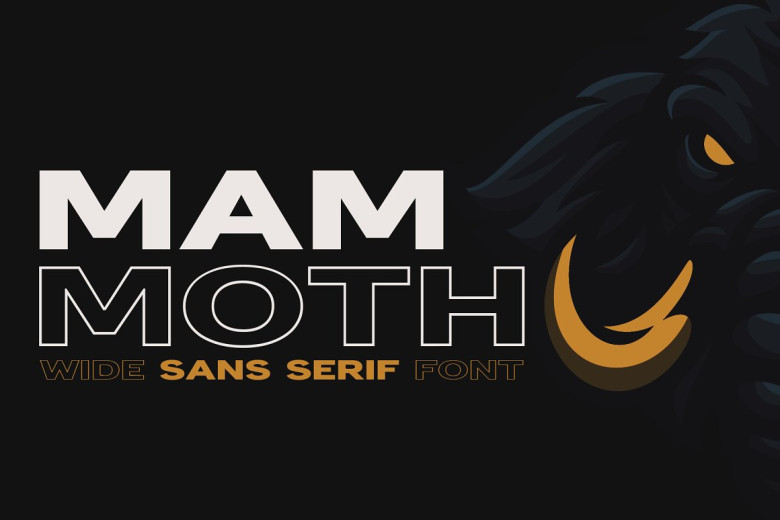
Mammoth Font
Mammoth Font is a wide sans serif typeface prepared to break a few boundaries in your designs. This modern typeface will make any project with its clean look and easy-to read formative letters. No matter what you’re doing – magazines, fashion logos and brands, photography branks or invitations fishing invitations for me quotes on my viewof different articles all pub header posters (through newspapers).
There are endless ways you can use it!This download contains regular and outline versions, along with lowercase letters for each. You can combine the outline and regular version to produce unique designs.
Mammoth Sans Serif Font